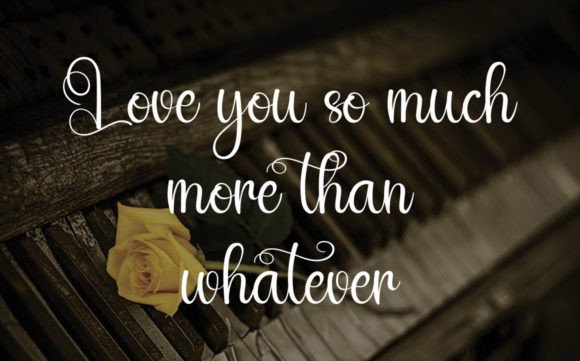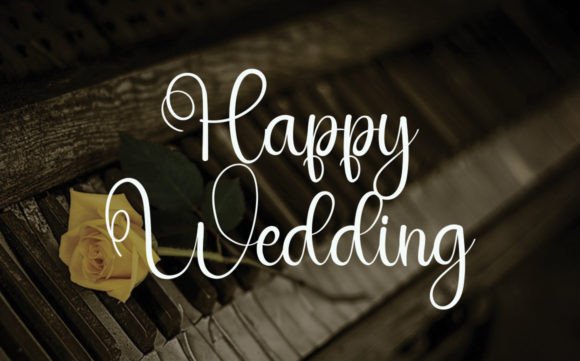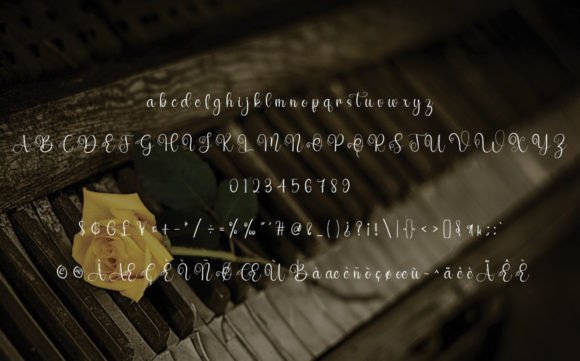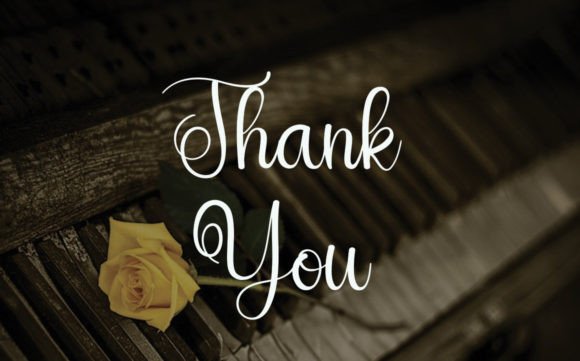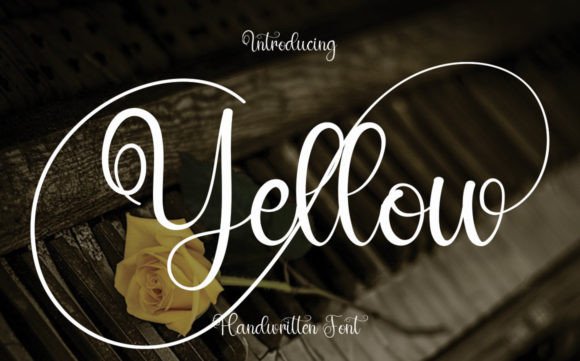
Yellow Font
About Yellow Font
Yellow is a captivating handwritten font that enchants with its unique charm. This versatile typeface offers a broad spectrum of applications, making it suitable for everything from greeting cards to headlines. With its distinctive style, Yellow is guaranteed to infuse a romantic and delightful feel into your next project.
The handwritten quality of Yellow brings a personal and authentic touch to your text, making it particularly well-suited for projects that aim to establish a connection with the audience. Whether you’re designing greeting cards for special occasions, crafting heartfelt messages, or creating engaging headlines, Yellow adds a touch of warmth and individuality that resonates.
One of the standout features of Yellow is its versatility. This font seamlessly transitions across various design contexts, adapting to different purposes with ease. Whether you’re working on print materials, digital content, or branding elements, Yellow maintains its enchanting character, ensuring a consistent and visually appealing presentation.
In the realm of greeting cards, Yellow shines as a font that elevates the emotional impact of your messages. Its romantic and handwritten aesthetic adds a layer of sincerity, turning each card into a heartfelt expression. When used in headlines, Yellow commands attention with its distinctive charm, making your messages both engaging and memorable.
The enchanting nature of Yellow extends beyond its visual appeal; it creates an immersive experience for the reader or viewer. The fluid strokes and graceful curves of the letters contribute to an overall sense of elegance, making Yellow an excellent choice for projects that demand sophistication and style.
As you embark on your next creative endeavor, let Yellow be the secret ingredient that transforms your project into a romantic masterpiece. Whether you’re a designer, a writer, or anyone with a passion for creative expression, Yellow is here to enhance your work with its enchanting handwritten allure. Immerse your projects in the romantic feel of Yellow and watch as it breathes life into every word and design element, leaving an indelible mark on your audience.